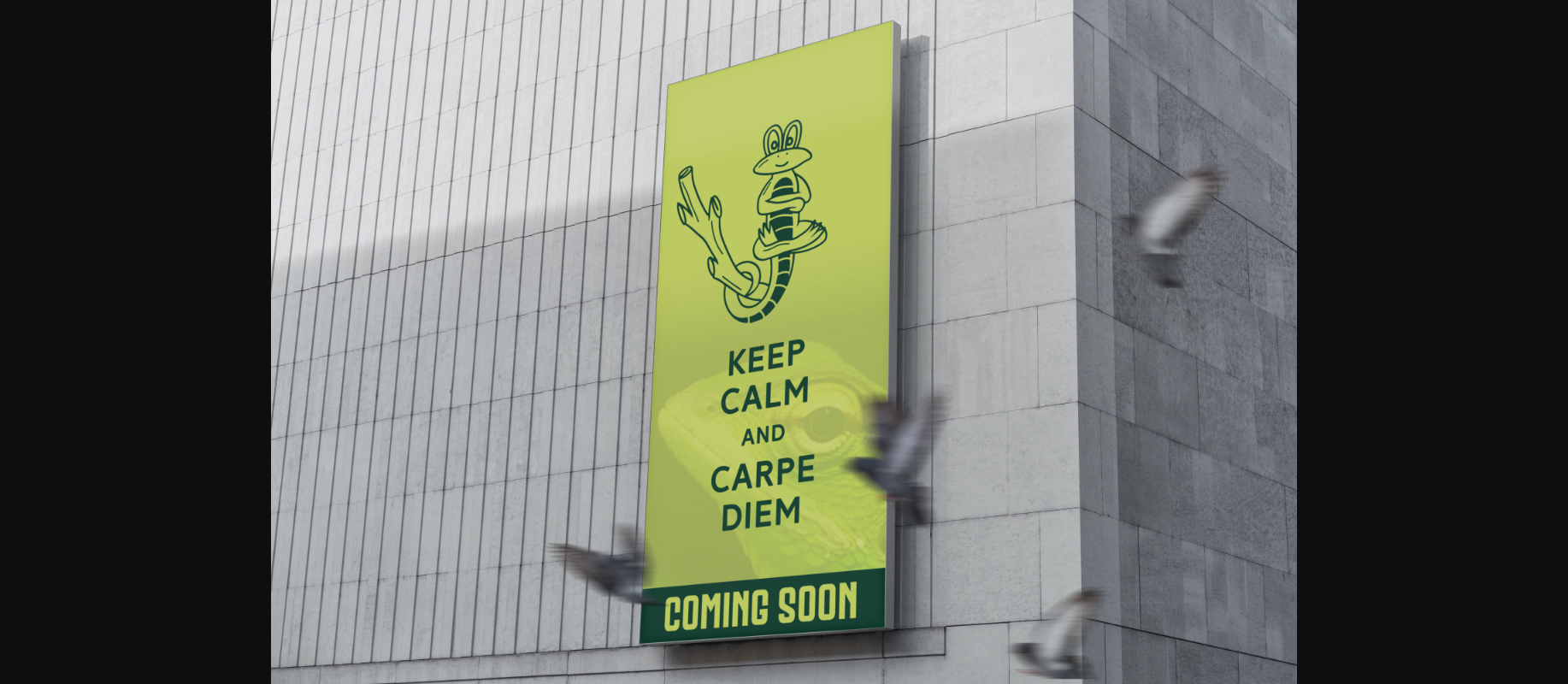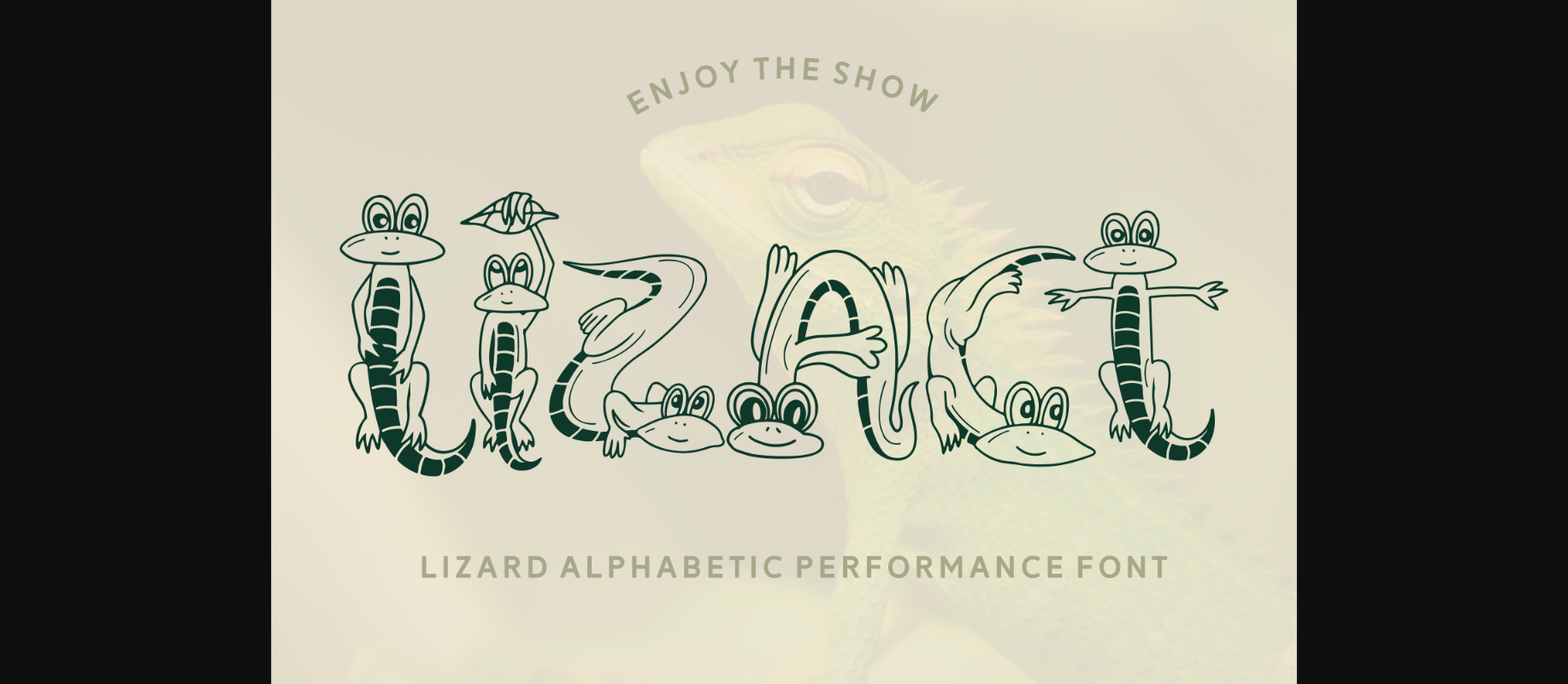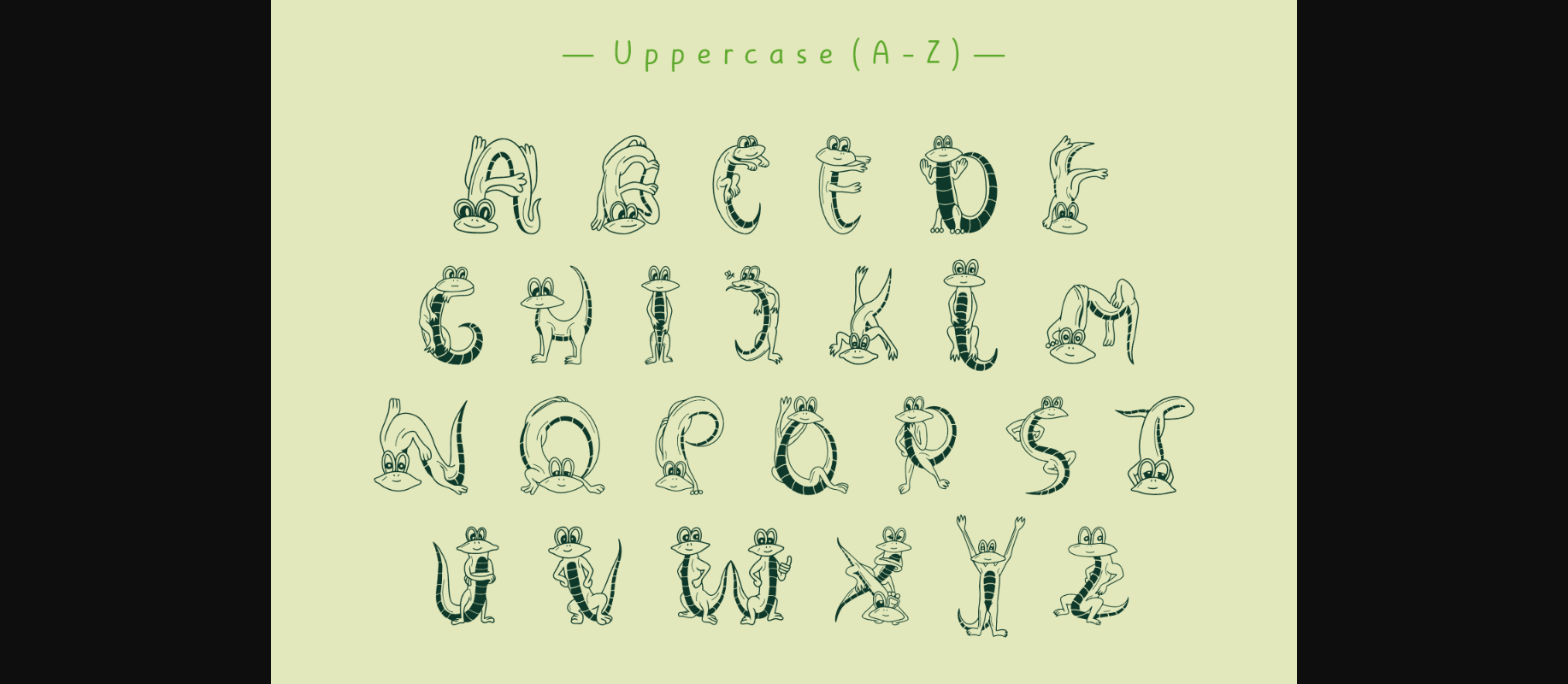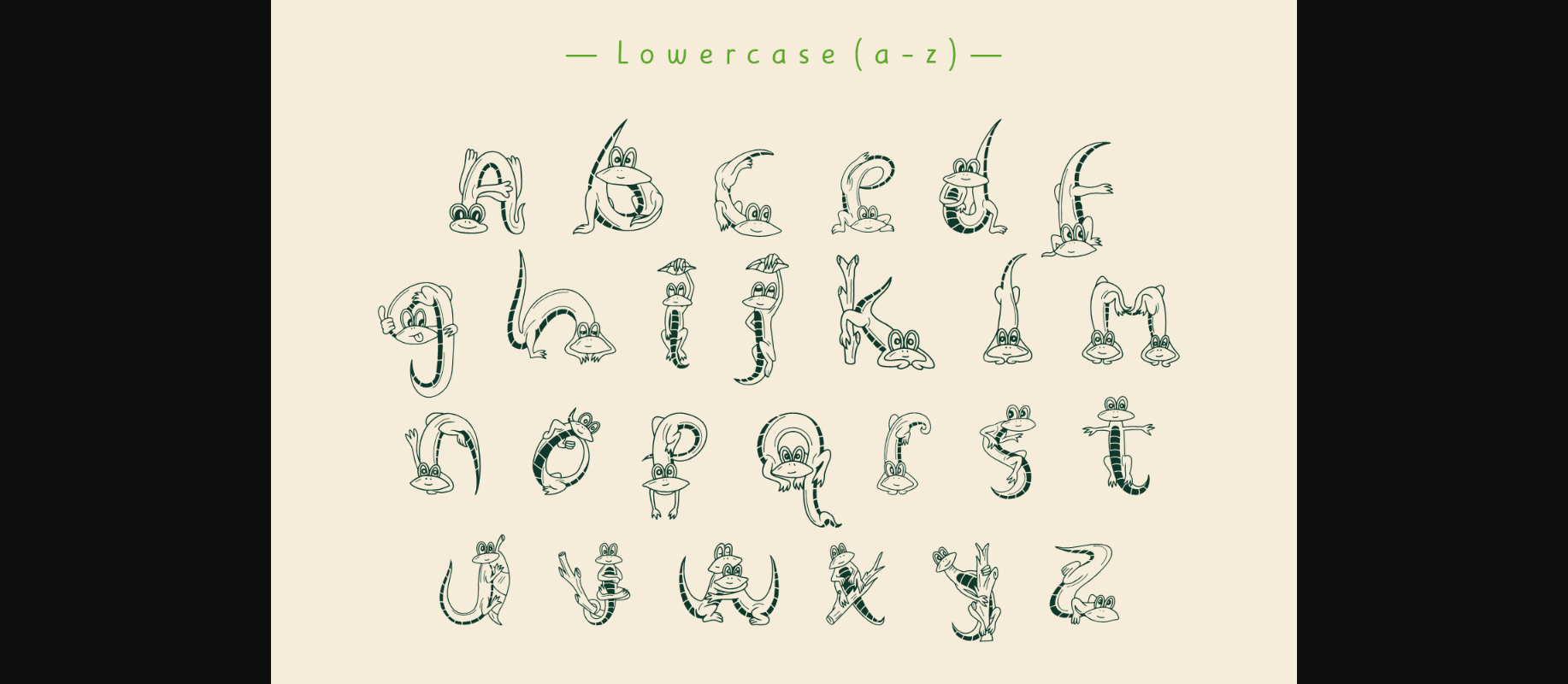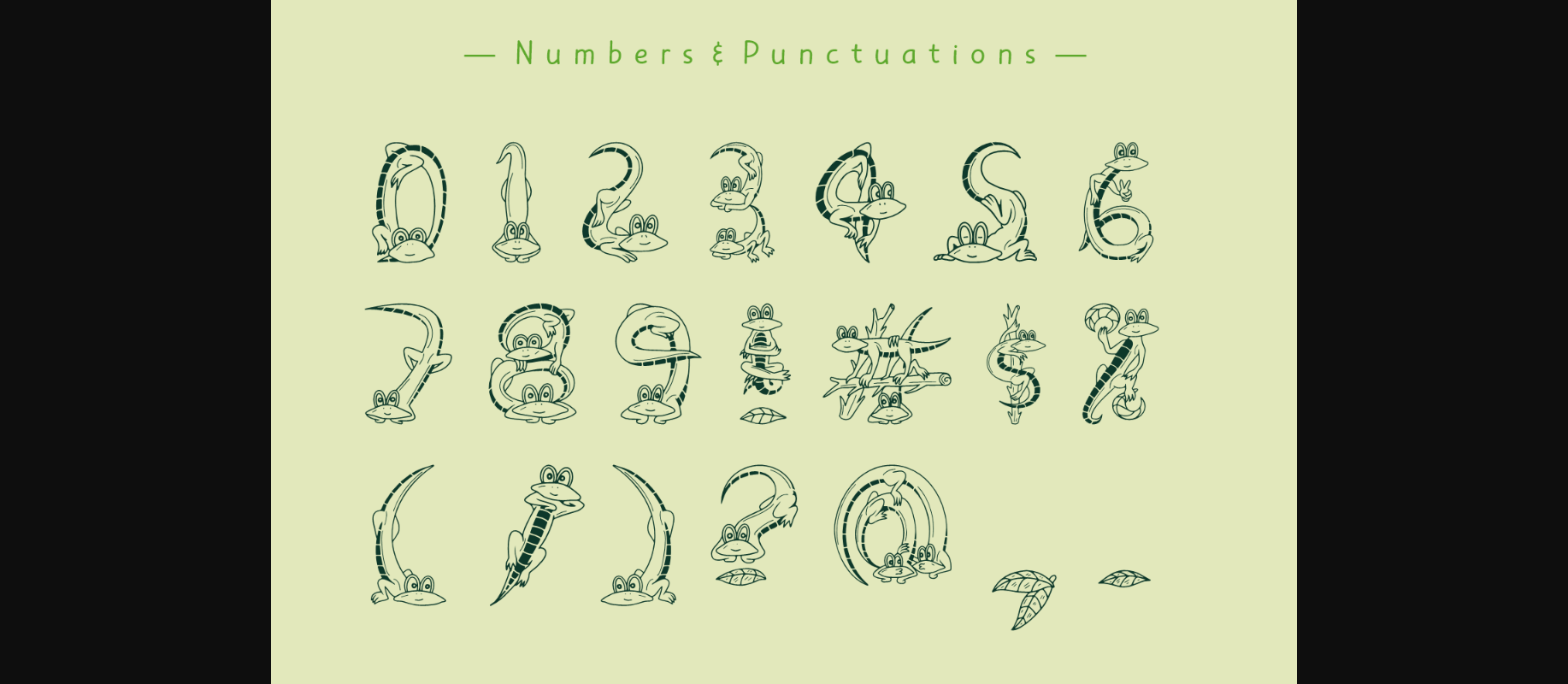
About Lizact Font
Lizact is an incredibly unique and out of this world decorative font. If you look for something to make your creations pop out, this is the ideal choice. Add it confidently to your projects, and you will love the results.